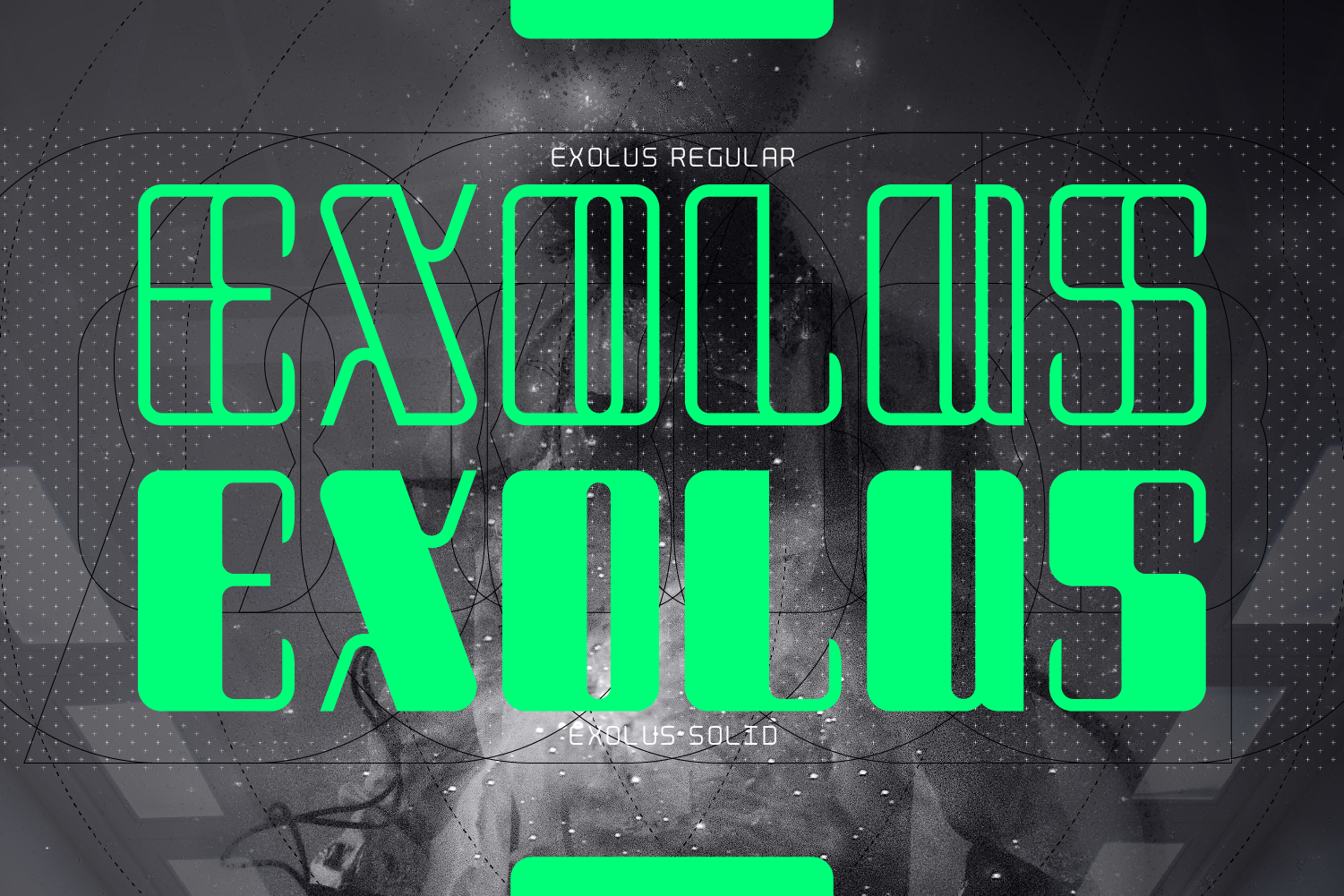
EXOLUS Experimental Font
EXOLUS - Experimental Futuristic Typeface - Released Nov 2020
"Exolus" was originally created as a logotype for my font designs when I was starting out designing them in font lab. Baseline as it was called got put on the back burner but in tidying up old font project files I decided it needed a new lease of life in an improved font design with the same approach.
Typically "Exolus" is a outline display font that had an approach which is unorthodox in that you have to study the characters to see what it said. I liked the idea it was slightly illegible (others may not).
"Exolus" Is an Uppercase Typeface, the lower is a mirror of the uppercase letters but both contain a few stylistic alternatives on a number of letters and numerals. Complete with the usual array of punctuation it is a usable modern futuristic typeface.